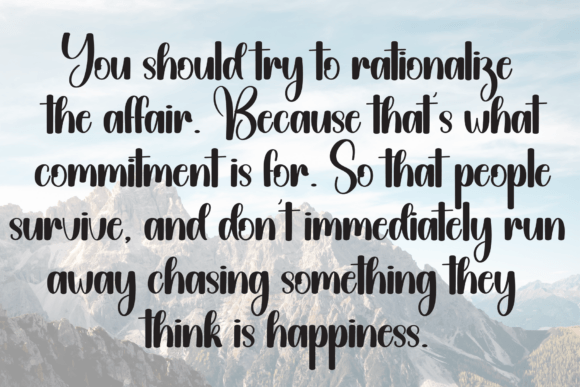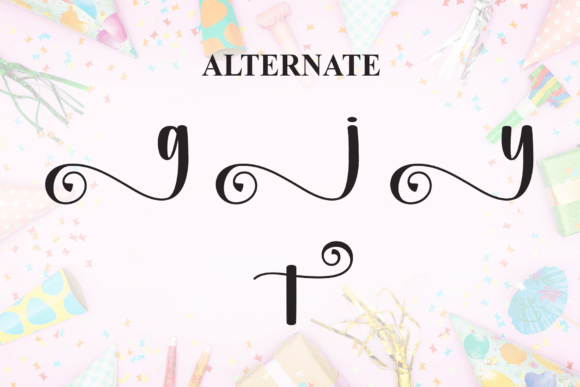
Birthday Font
Birthday Font is a bold handwritten font that looks fun and lively. It has thick letters that feel personal and friendly, making it perfect for birthday cards, invitations, and decorations. The playful style adds a festive touch to any celebration!